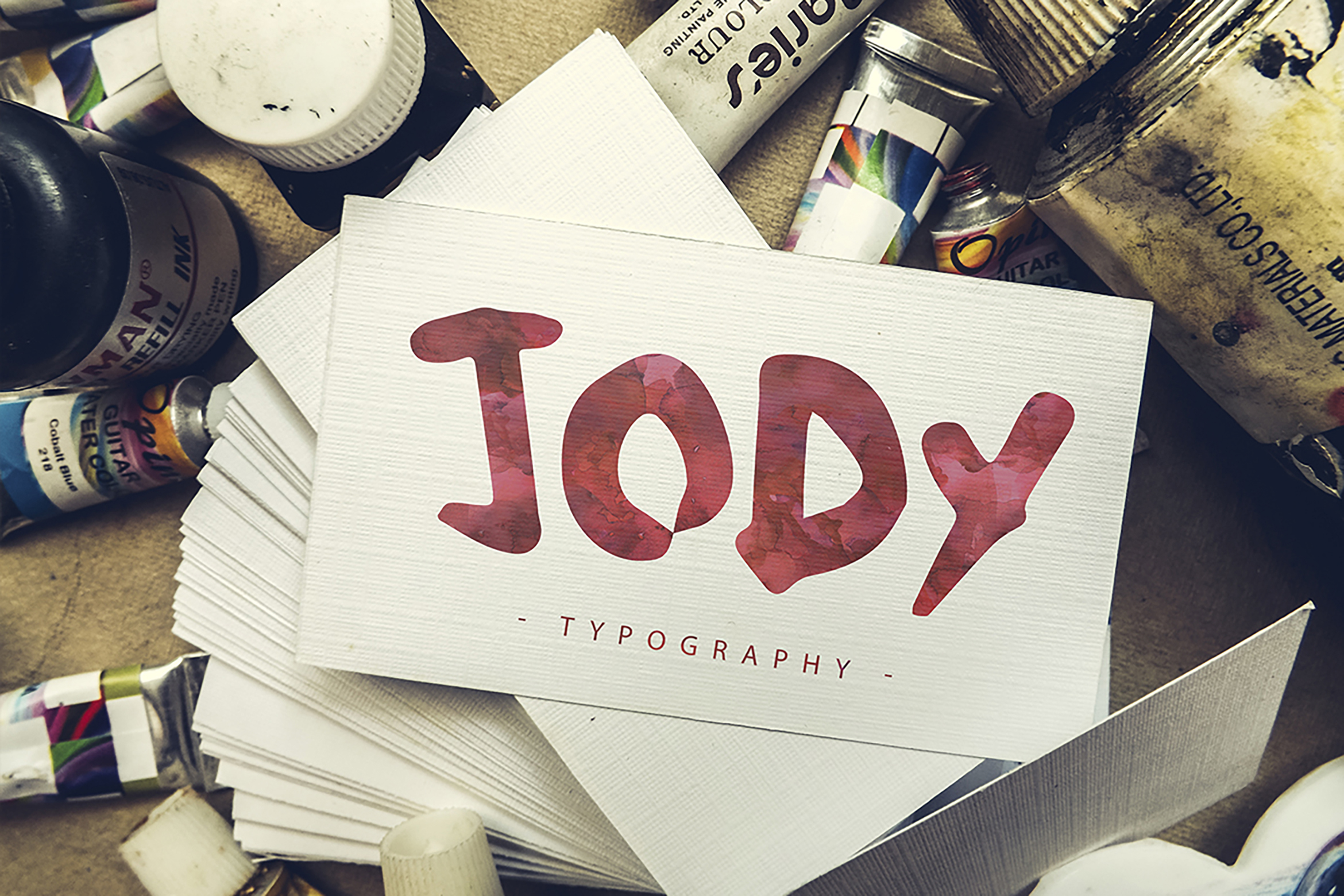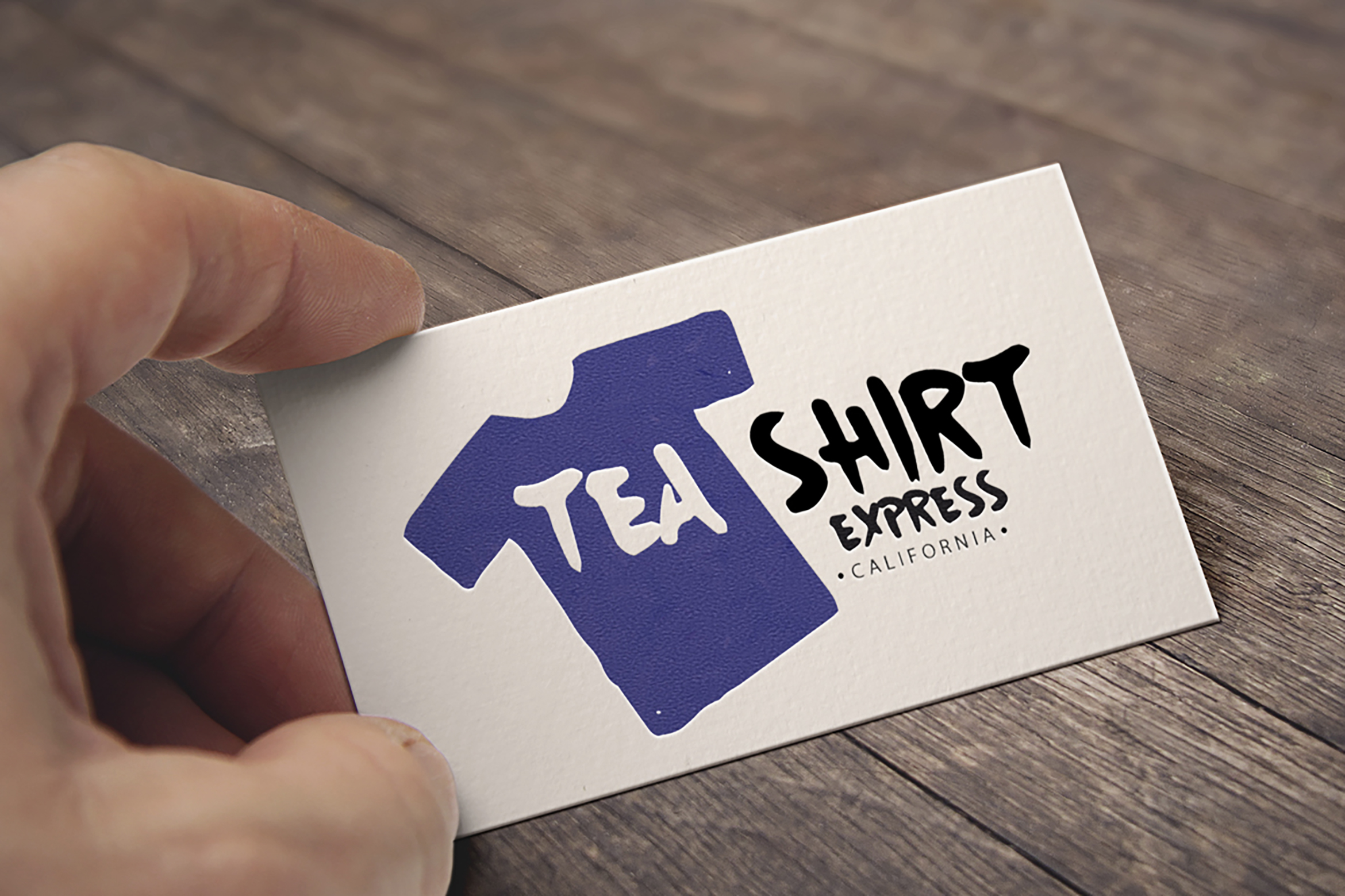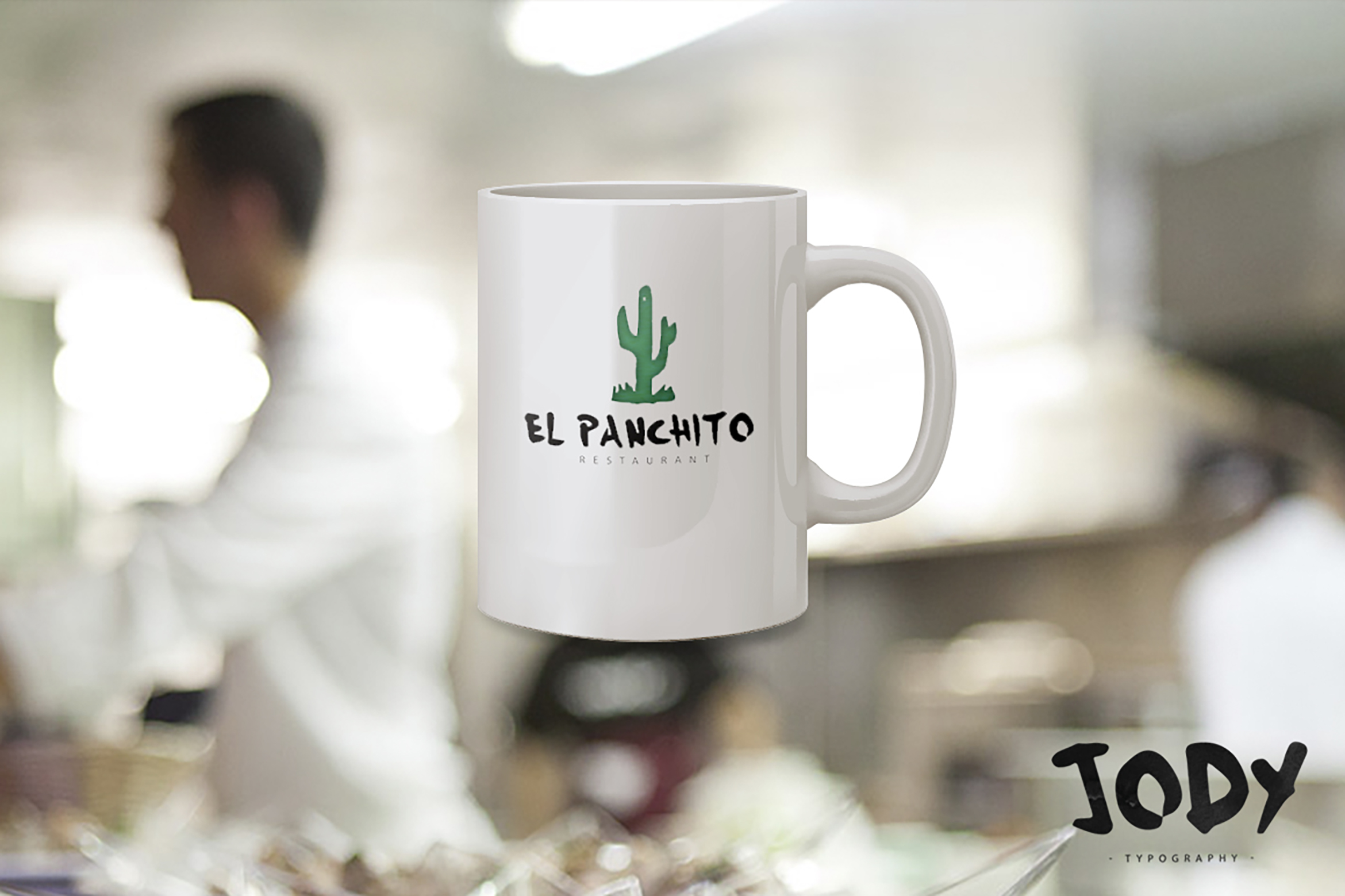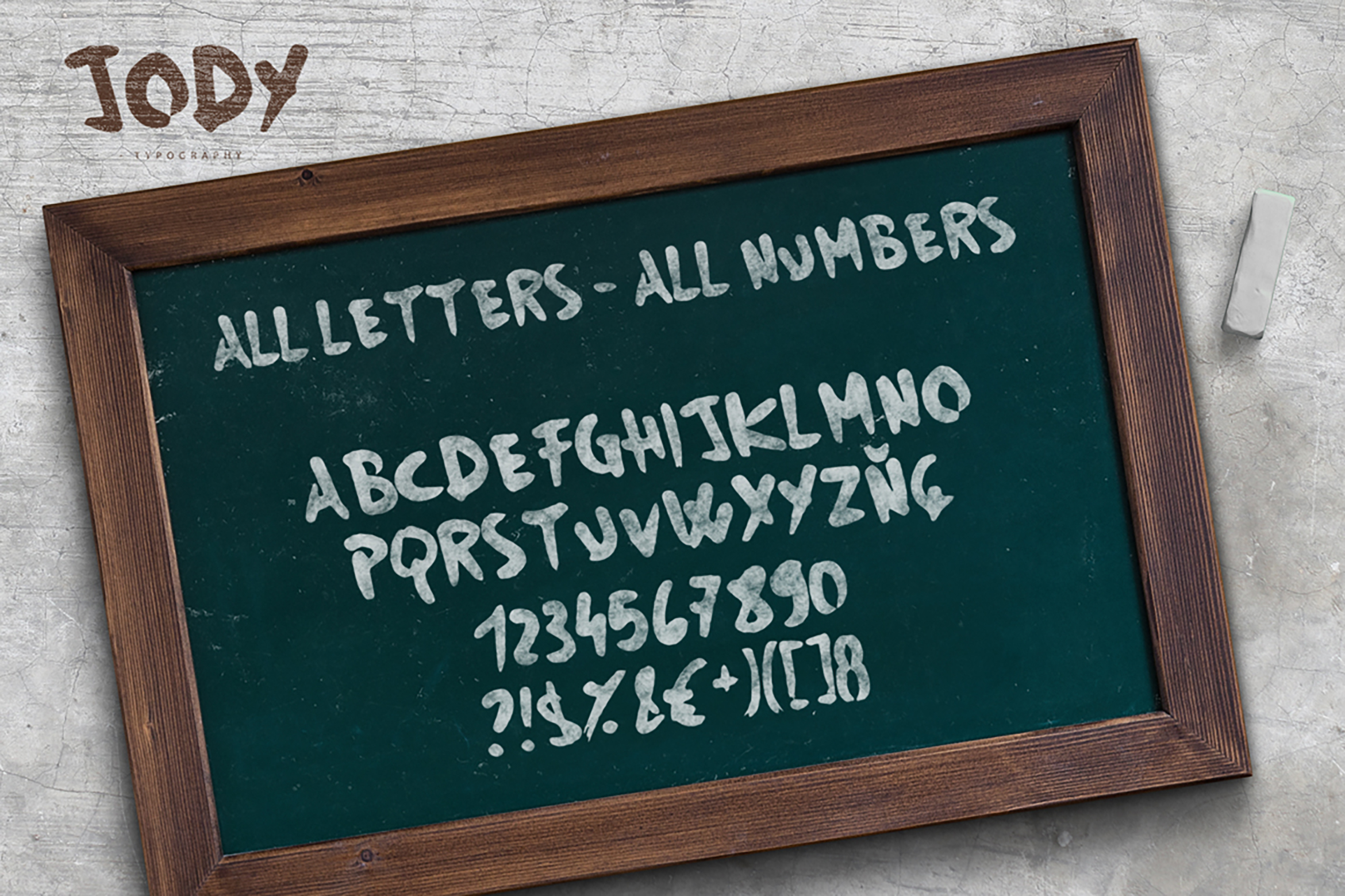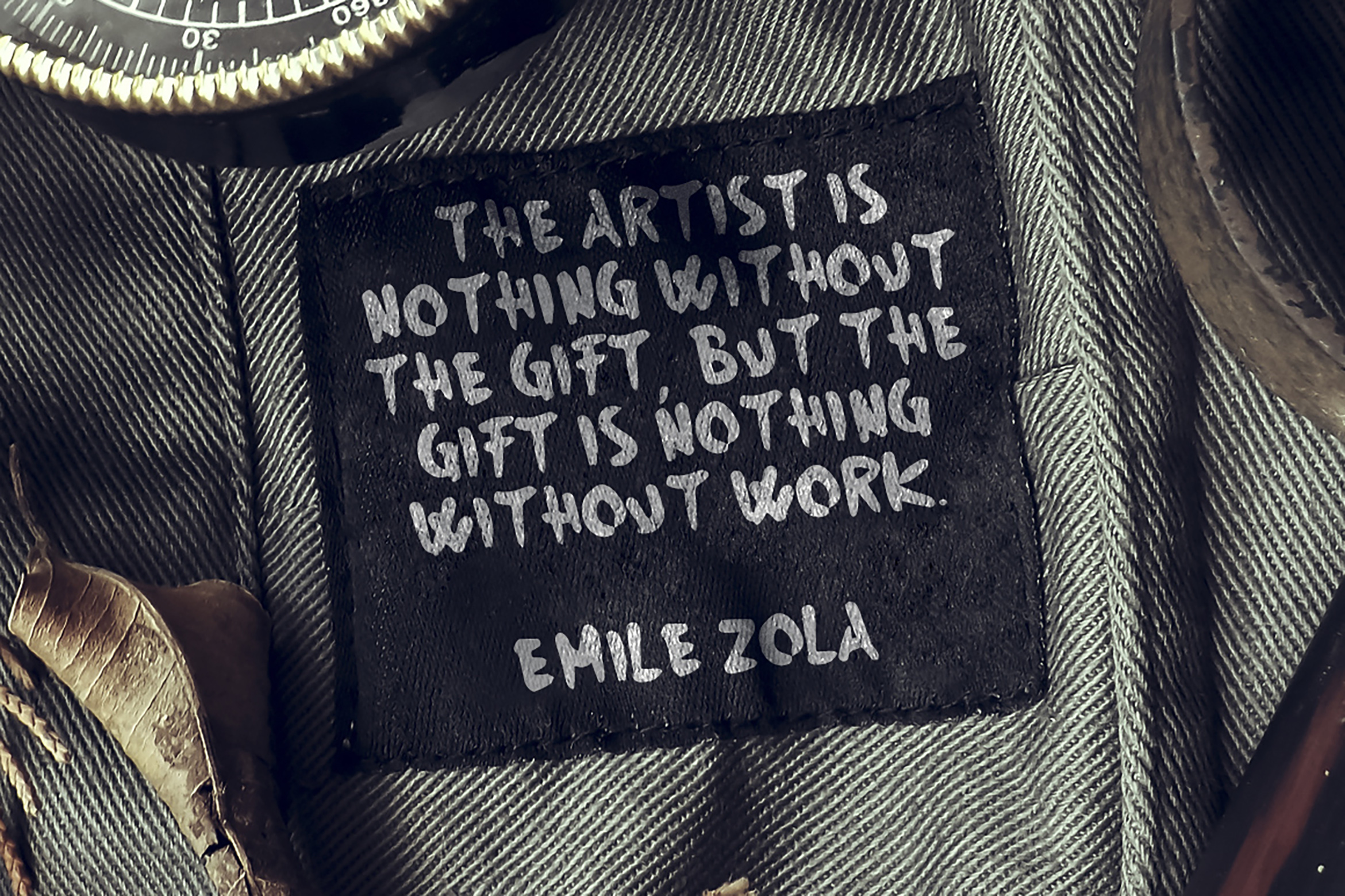
Jody is a font with an acrylic look & feel to it. This font is perfect if you are looking to create items that need to stand out.
All Uppercase. All letters. All numbers.